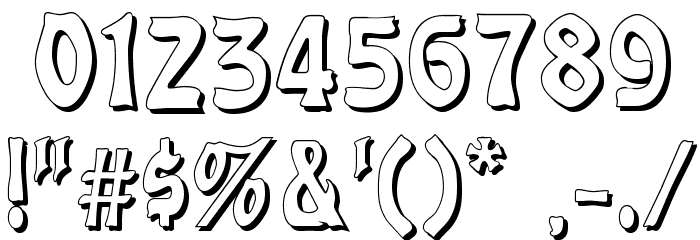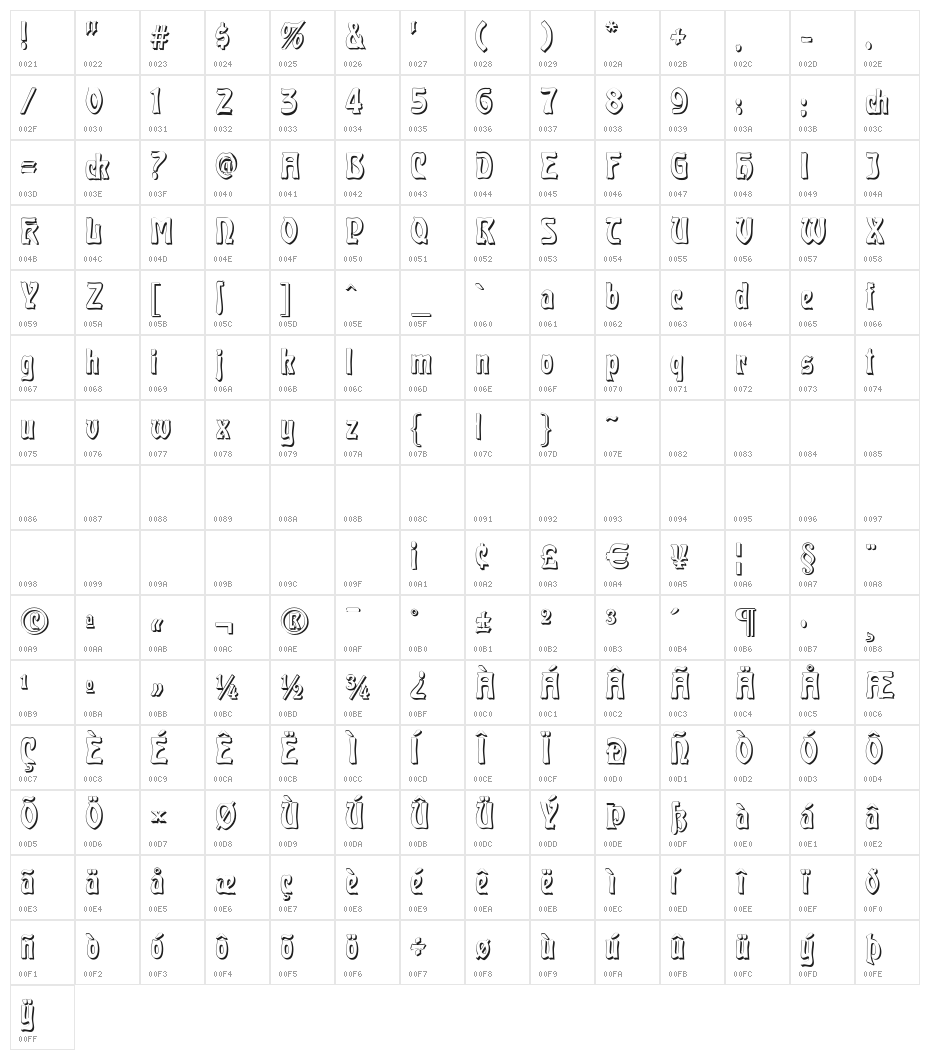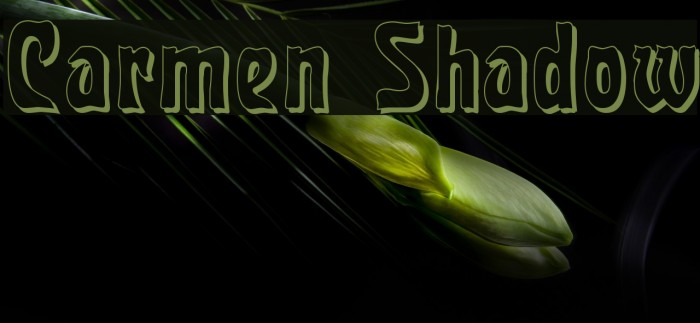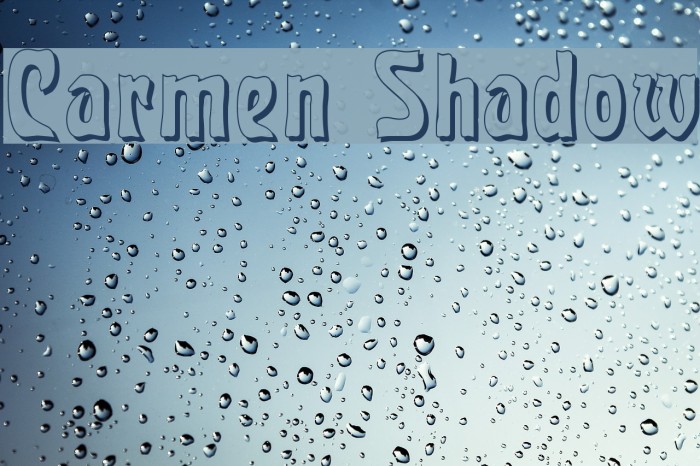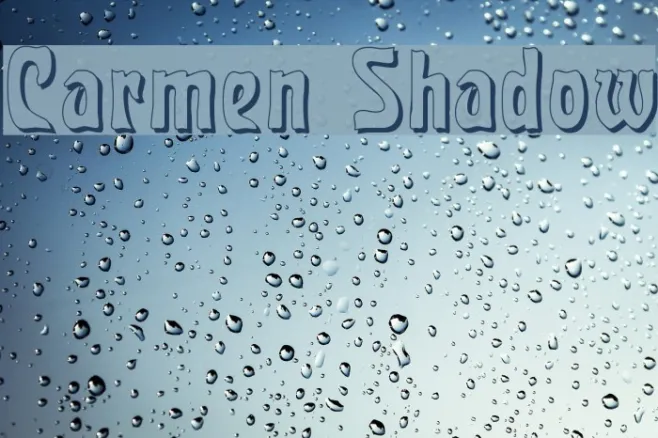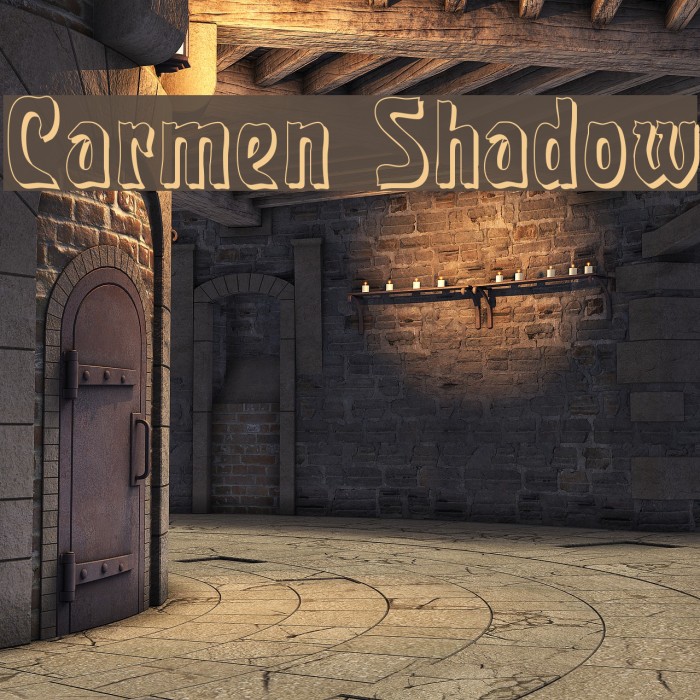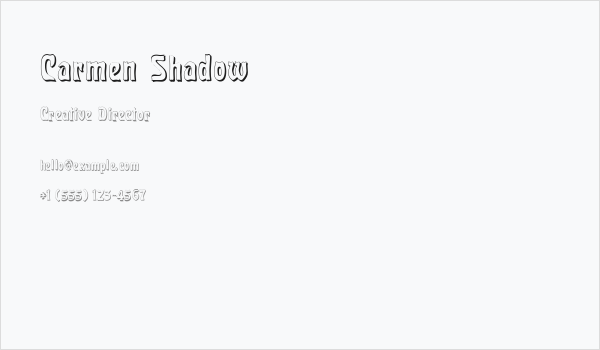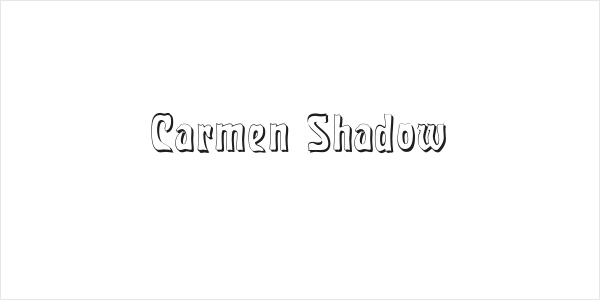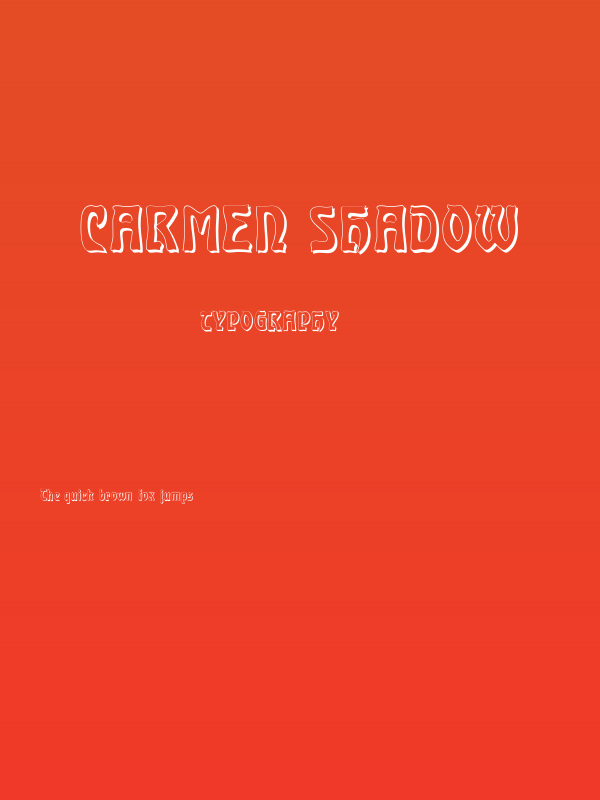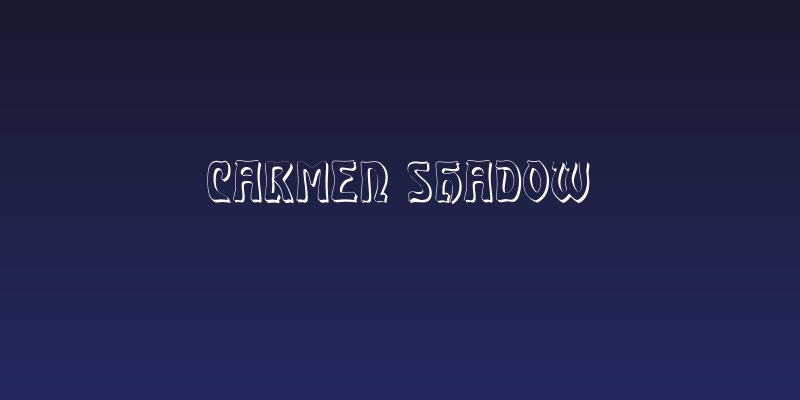
Carmen Shadow Font
Carmen Shadow Description
This font features a bold and playful design with a shadow effect that gives it a three-dimensional appearance. The characters are uppercase and lowercase letters, numbers, and a variety of special symbols. Each character has a distinct outline that enhances the shadow effect, creating a sense of depth and movement. The style is reminiscent of retro or vintage designs, making it suitable for projects that require a touch of nostalgia. The font's unique shadowing adds a dynamic quality, making it stand out in headlines or titles.